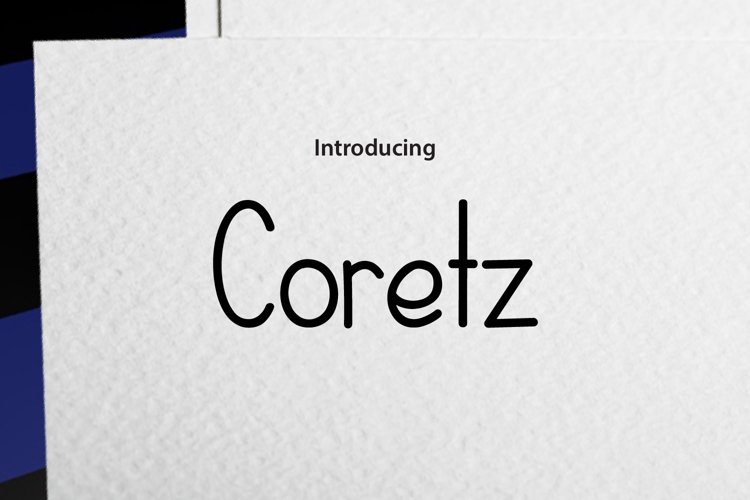
Coretz typeface handwriting suitable for Craft, logos, quotes,
clothing, advertising, image overlay, poster, cover films, greeting
cards and web banners, t-shirt, etc.